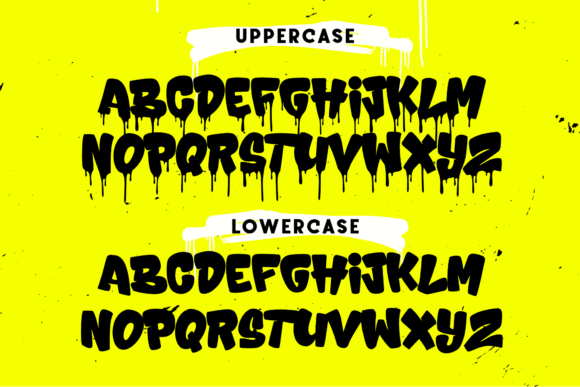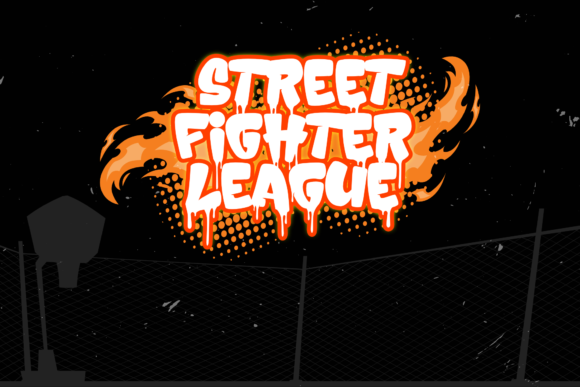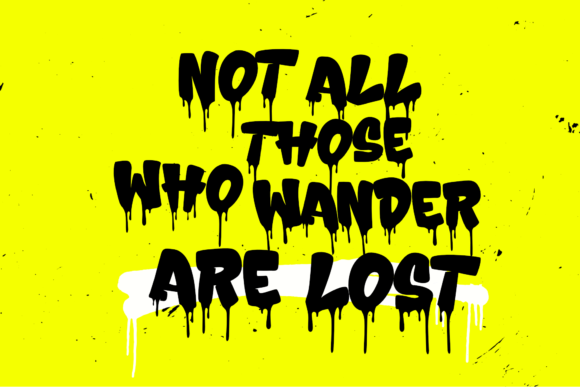
The Perfect Blend of Creativity and Style: Introducing Badrips Font
There’s nothing quite like the thrill of stumbling upon the perfect font to elevate your next creative project. You know the moment – the one where everything clicks into place, and your design starts to take shape. For designers, finding that elusive font can be a game-changer, and we’re excited to introduce you to a new addition to your library: the Badrips Font.
This cool street styled display font is inspired by the raw energy of graffiti art, making it the perfect choice for any project that needs a bold and eye-catching touch. Whether you’re working on a fashion brand, a music label, or a streetwear company, the Badrips Font has the potential to take your creations to the next level.
With its unique blend of style and sophistication, the Badrips Font is an incredible asset to any designer’s library. It’s a versatile font that can add a touch of edginess to any design, making it a valuable addition to your toolkit.
Key Features of Badrips Font
• Unique Characteristics: The font features a unique, hand-drawn style with subtle irregularities, giving it a distinctive and human touch.
Review of Badrips Font
Overall, I’m quite impressed with the Badrips Font. Here are some of its standout features:
• ✨ Unique design: The Badrips Font has a quirky, handwritten feel that’s perfect for creative projects and personal branding.
• ✨ High character count: This font has a large character set, making it suitable for a wide range of applications.
• ✨ Excellent legibility: Despite its cursive feel, the Badrips Font is surprisingly easy to read, even at small font sizes.
• ⚠️ Limited font weights: The Badrips Font only comes in a few weights, which may not be ideal for projects that require a wide range of font weights.
• ⚠️ Not ideal for body text: While the Badrips Font is great for headlines and titles, it’s not the best choice for body text due to its informal feel.
Overall, I think the Badrips Font is a great choice for creative projects and personal branding. While it may not be suitable for every project, it’s definitely worth considering for those looking for a unique and eye-catching font.
The Badrips font is perfect for:
• Playful branding and logos
• Food and beverage labels
• Children’s books and educational materials
Remember to use the font in moderation and balance it with other fonts to avoid visual overload.